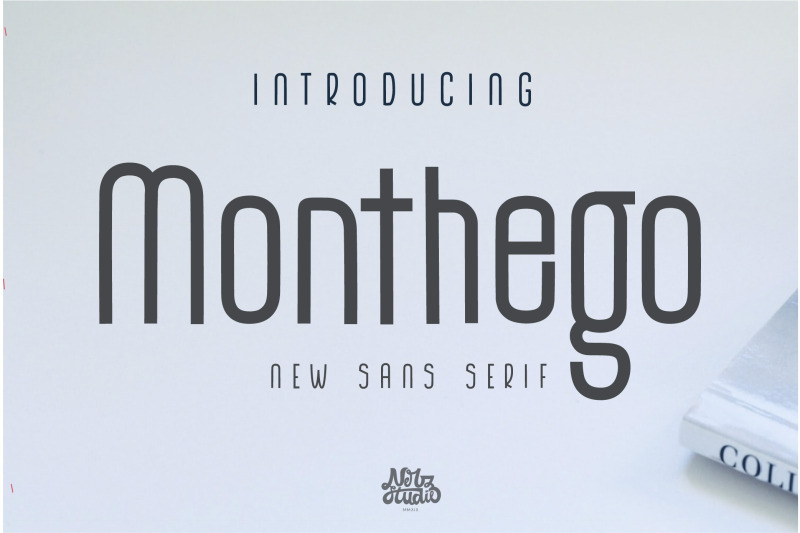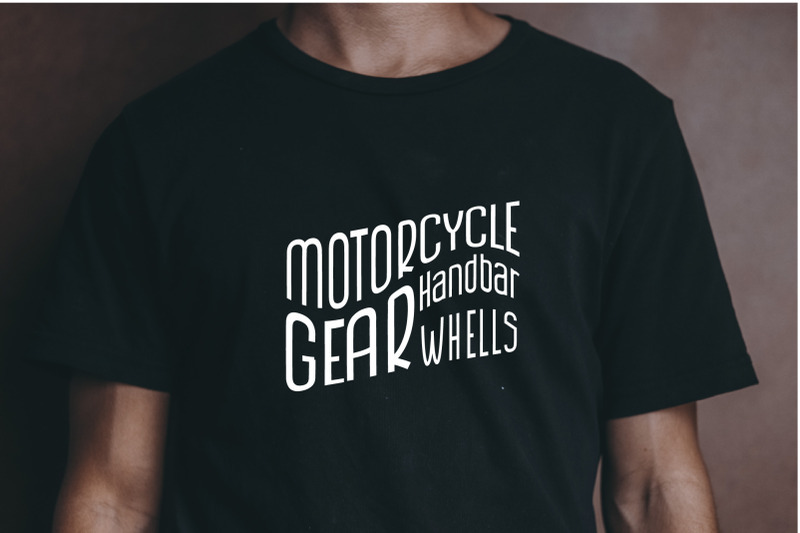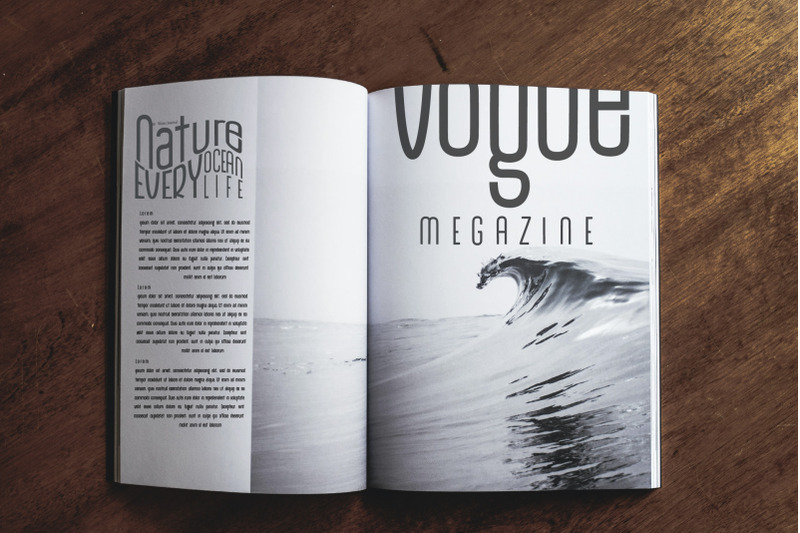
Freebie Wednesday: Monthego Sans Serif Font.
This handmade stylish font is perfect for product designs such as templates, mockups, magazines, and even for your own logo designs! This creative new font comes in OTF and TTF formats, so don’t miss out!